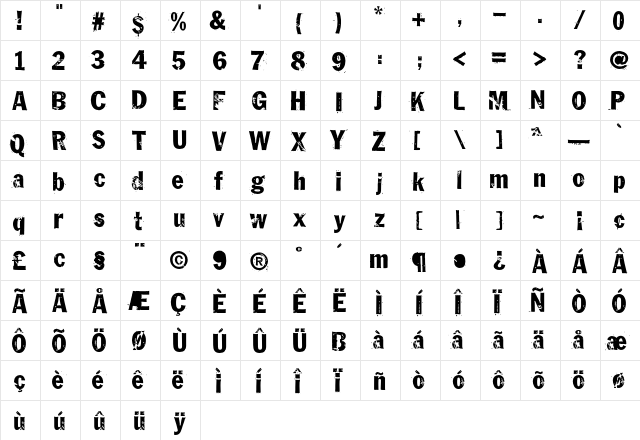
Gutter Regular Font Preview
Gutter Regular
Design Context for Gutter Typeface
Gutter is a composed and adaptable typeface that performs quietly and consistently across a wide range of design contexts.